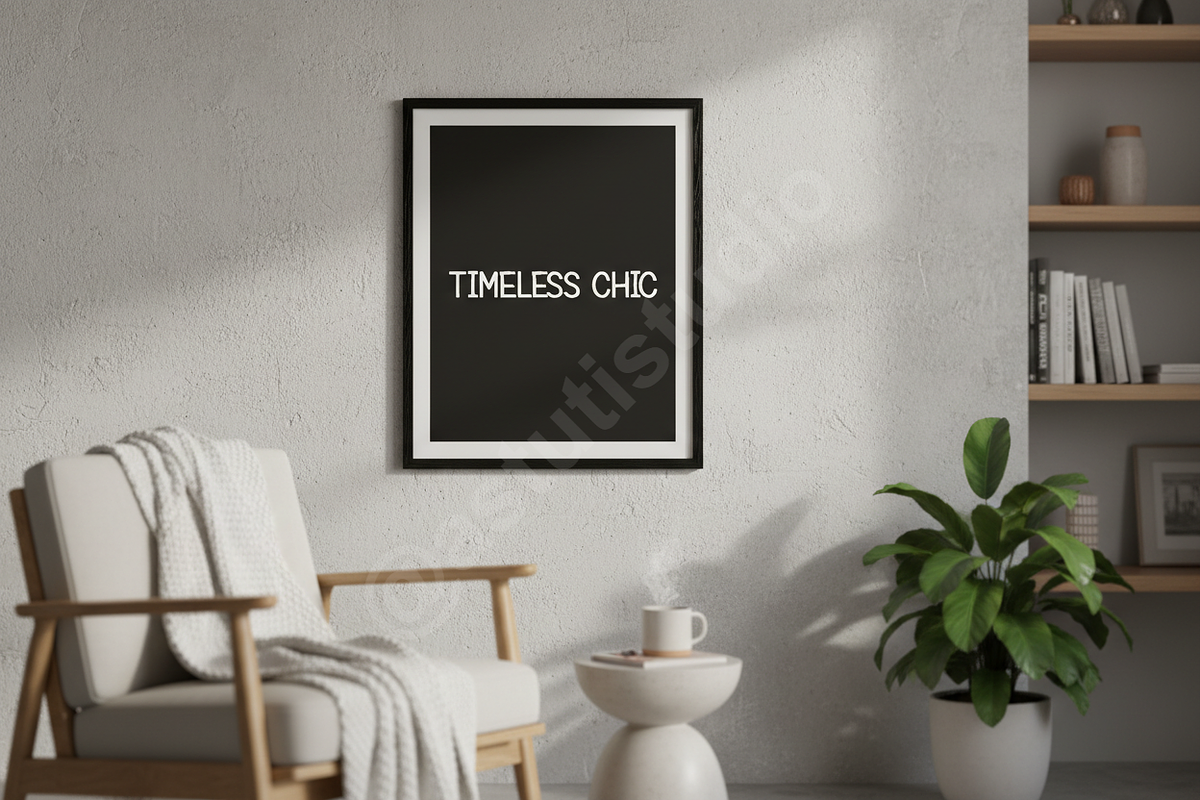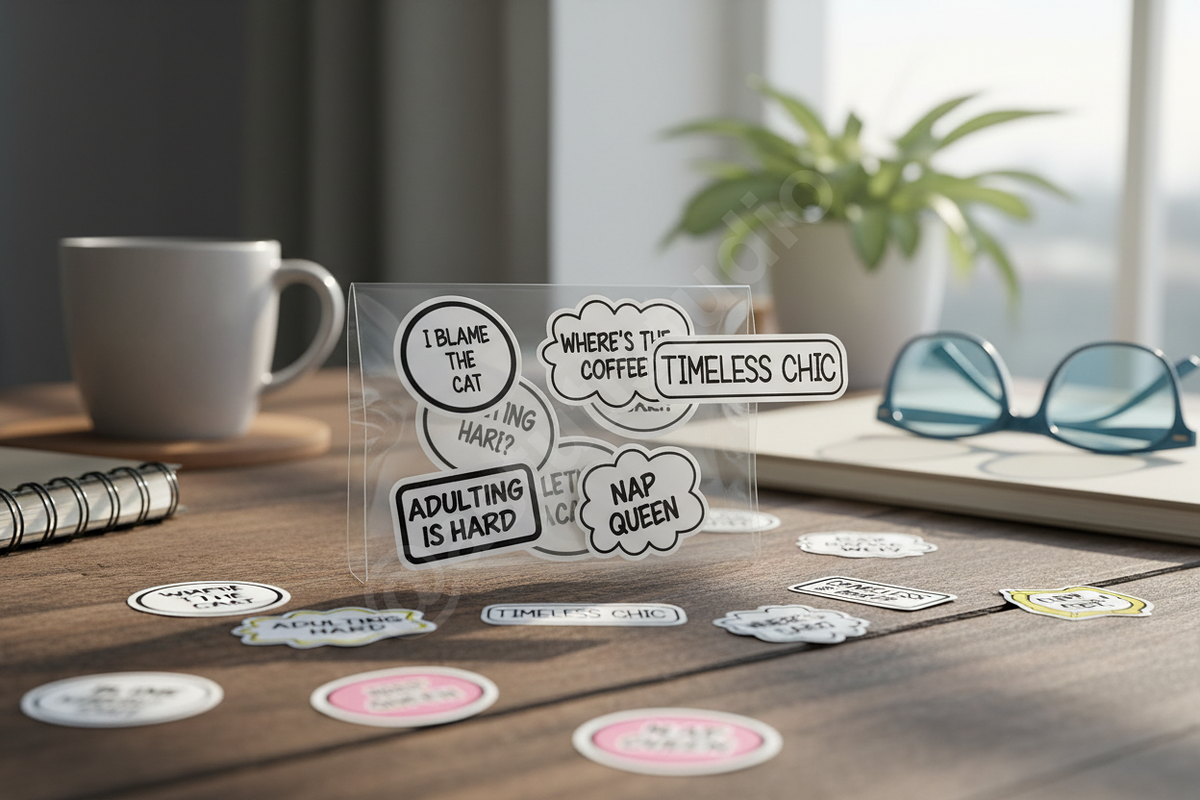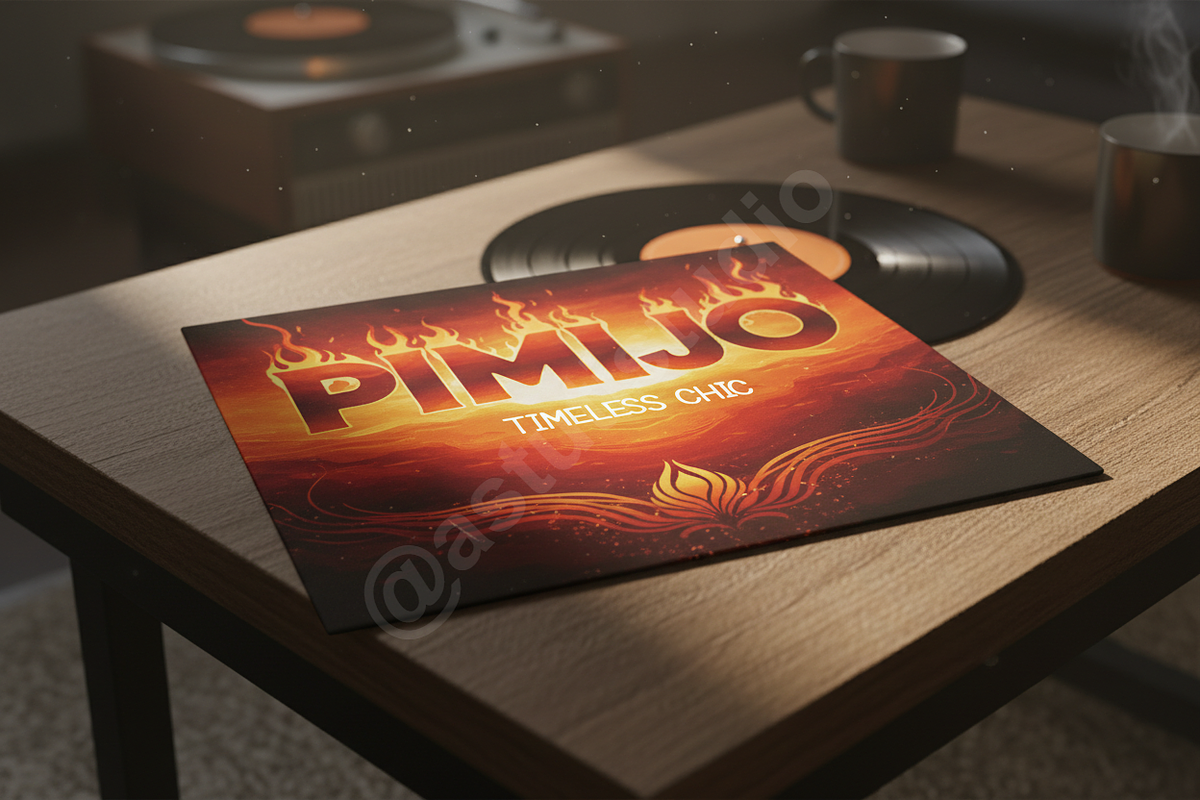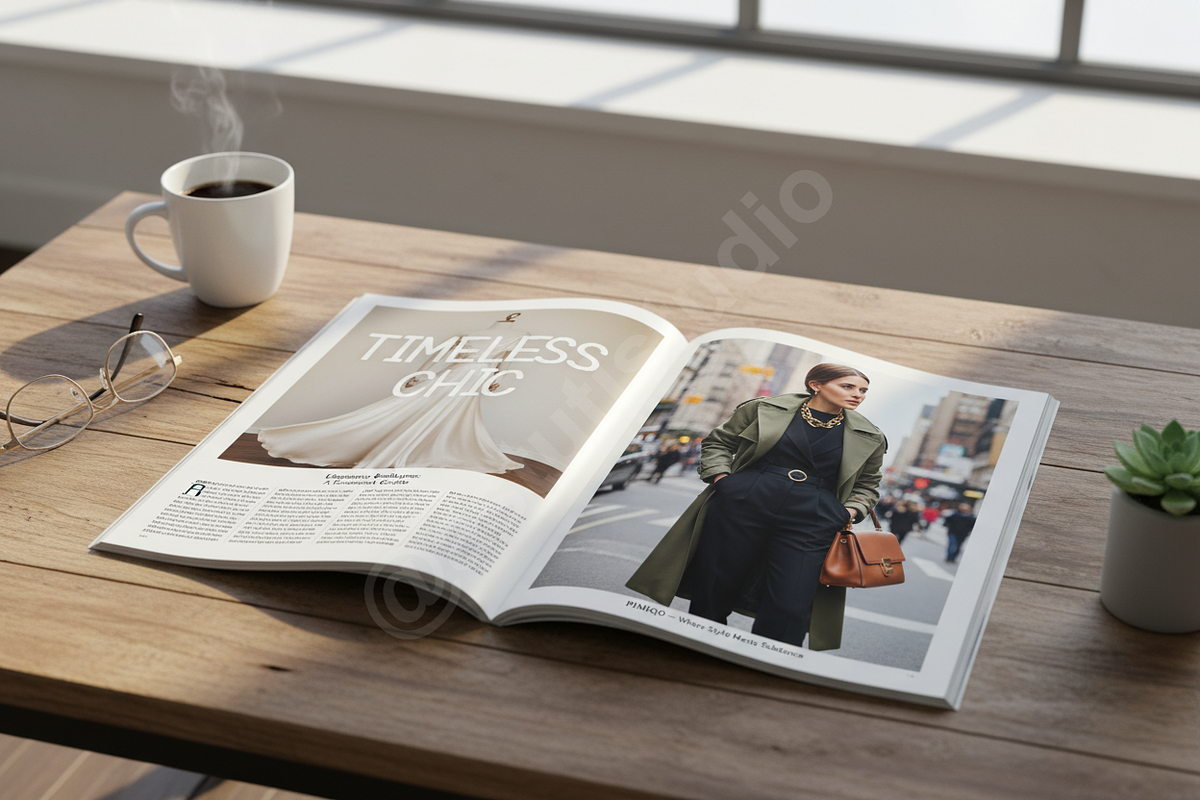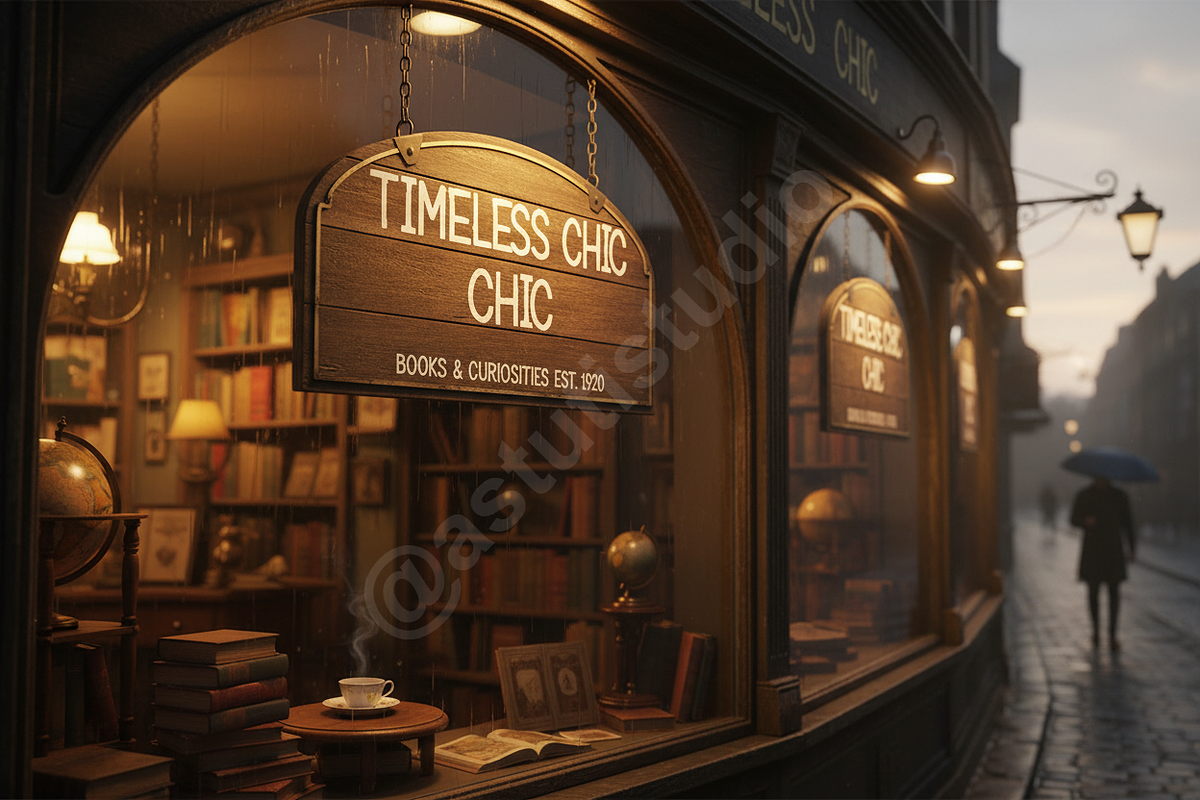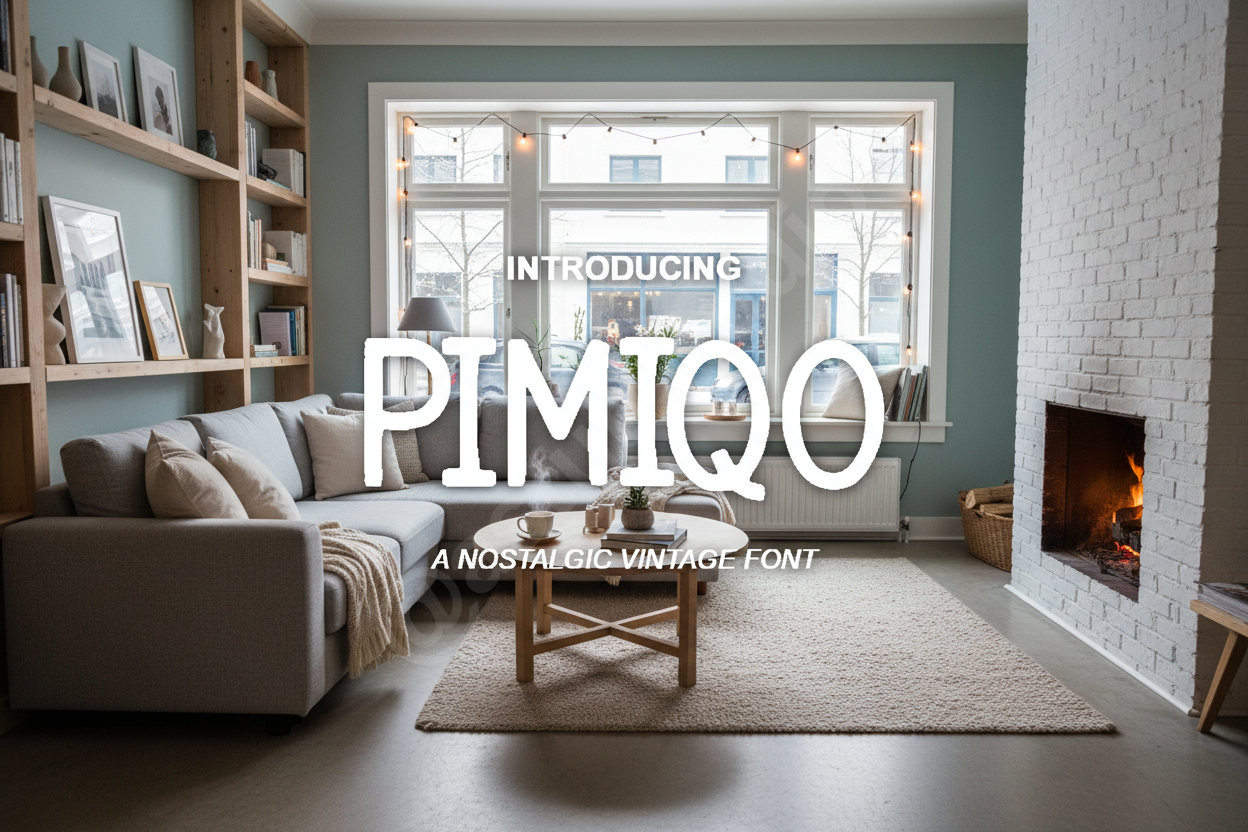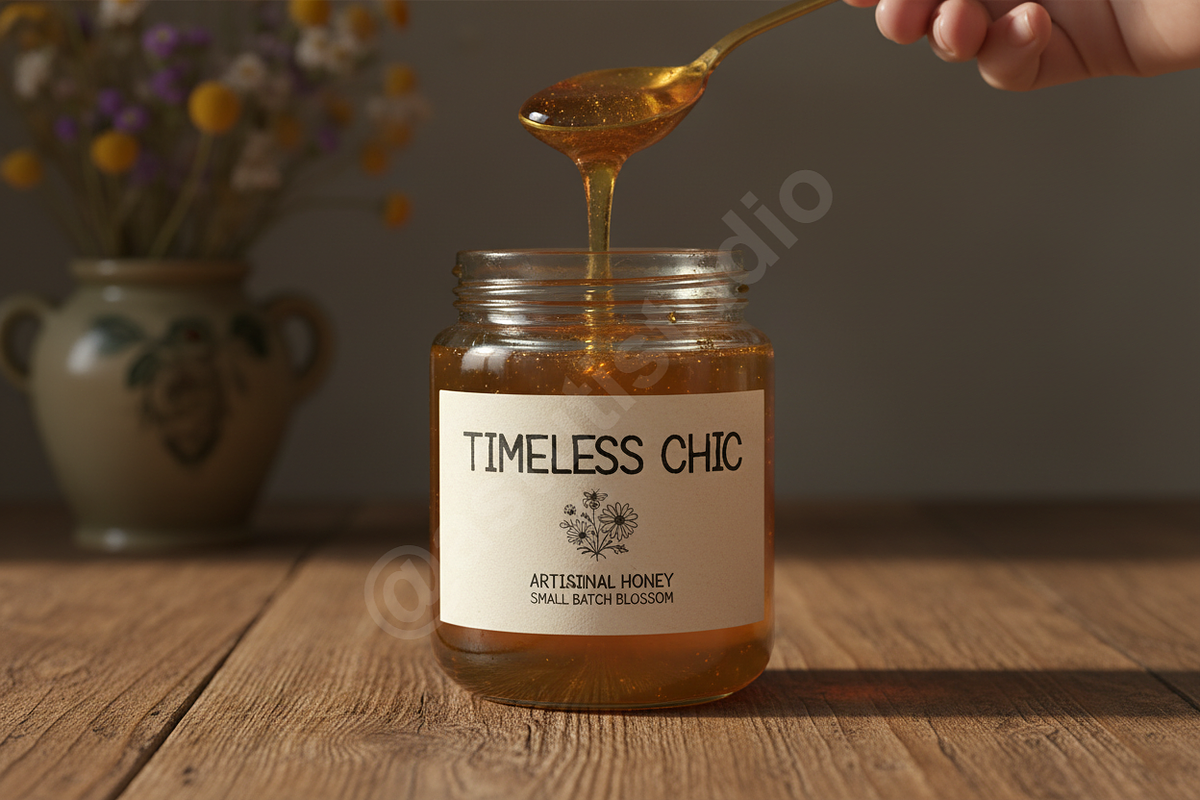
Pimiqo Modern Luxury Serif Typeface
Pimiqo is a high-end serif typeface designed for the discerning creator. This font blends timeless elegance with contemporary sophistication, making it an essential tool for premium branding and editorial excellence. Its balanced proportions and refined curves evoke a sense of luxury that is both understated and impactful.
- Luxury branding and identity systems
- High-fashion editorial layouts
- Minimalist social media graphics
- Premium packaging design
- Upscale invitations and stationery
- Full uppercase and lowercase character set
- Comprehensive multilingual support
- Unique stylistic alternates and ligatures
- Precise kerning for a professional finish
- Clean, high-contrast aesthetics